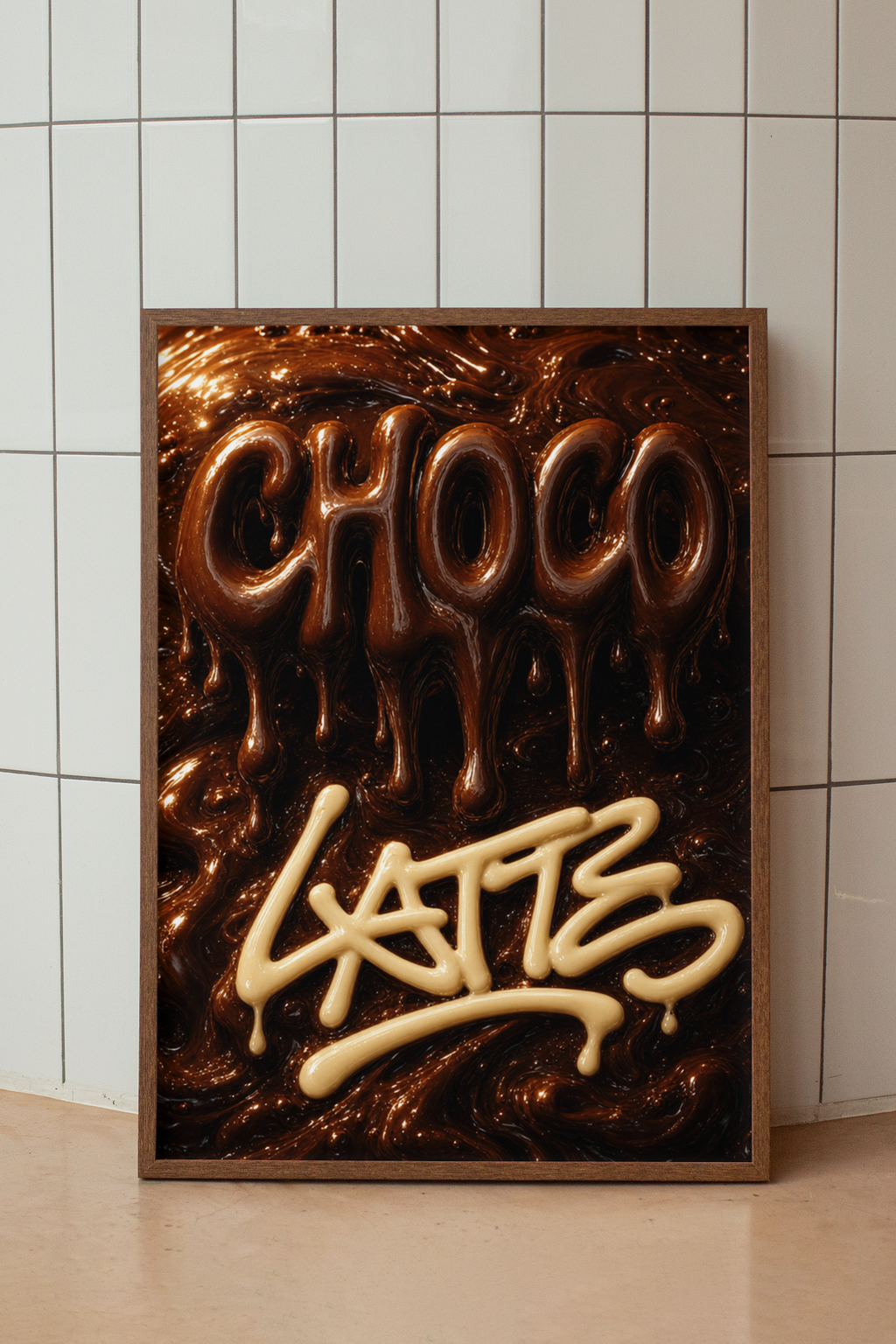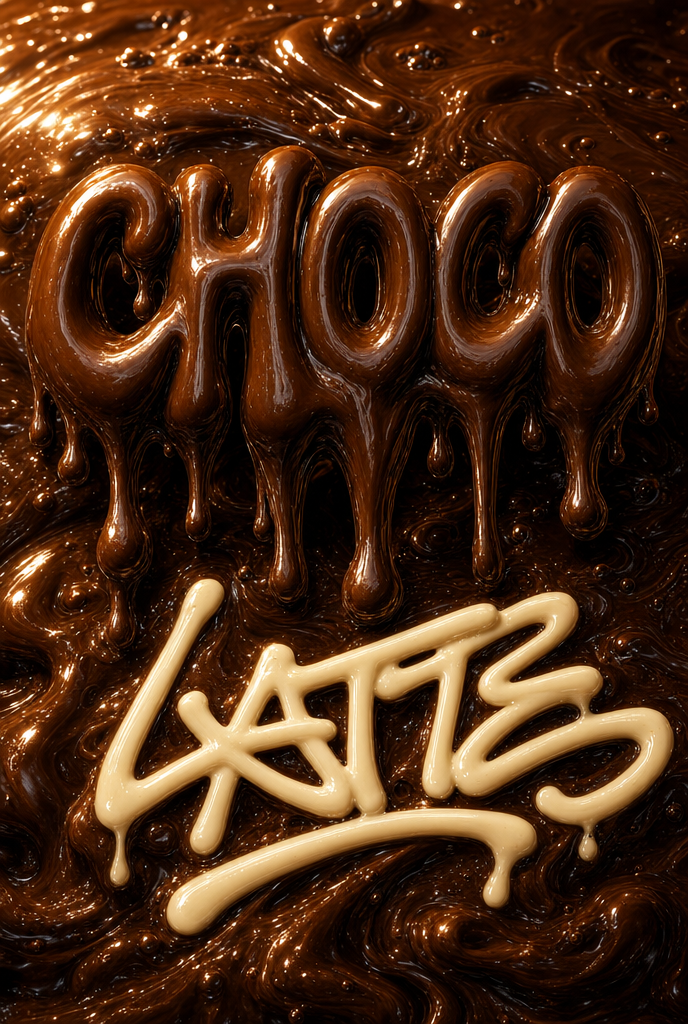
CHOCOLATTE
Premium 61 x 91 cm poster featuring glossy, melted-chocolate typography reading "CHOCOLATTE" with creamy white graffiti beneath—rich, tactile textures and dripping details create an indulgent, hyper-realistic visual. Perfect for kitchens, cafes, dessert shops, or cozy interiors.